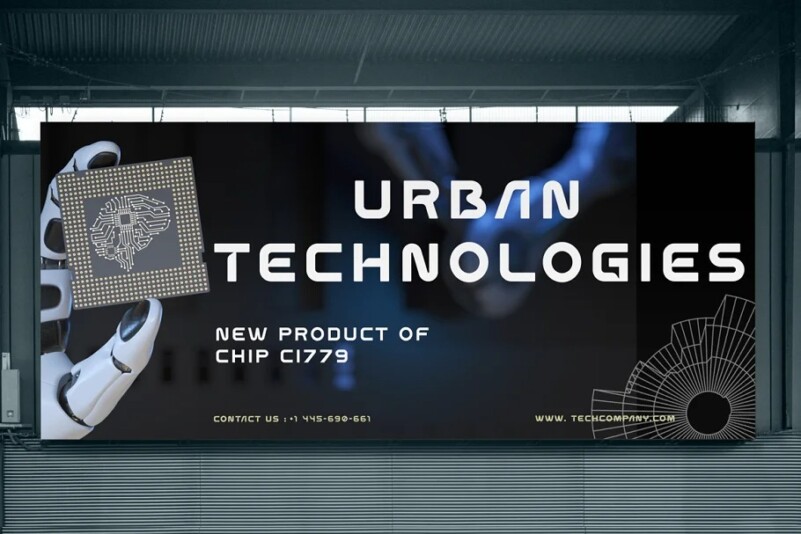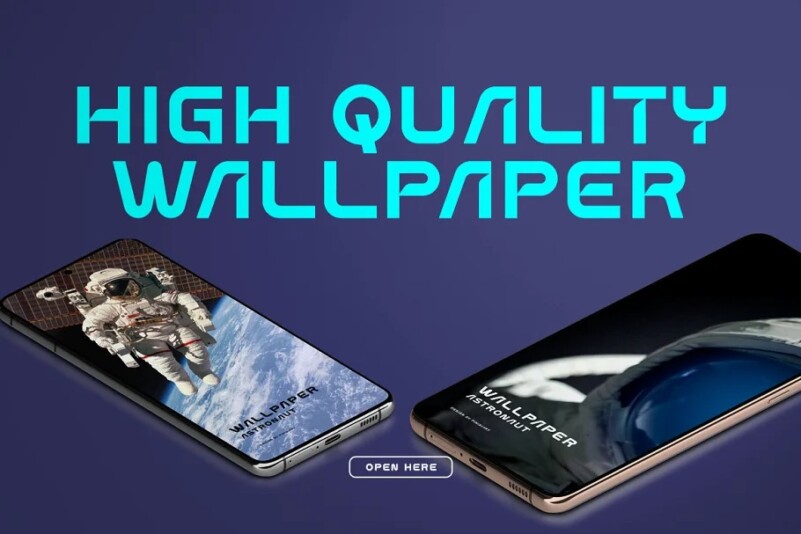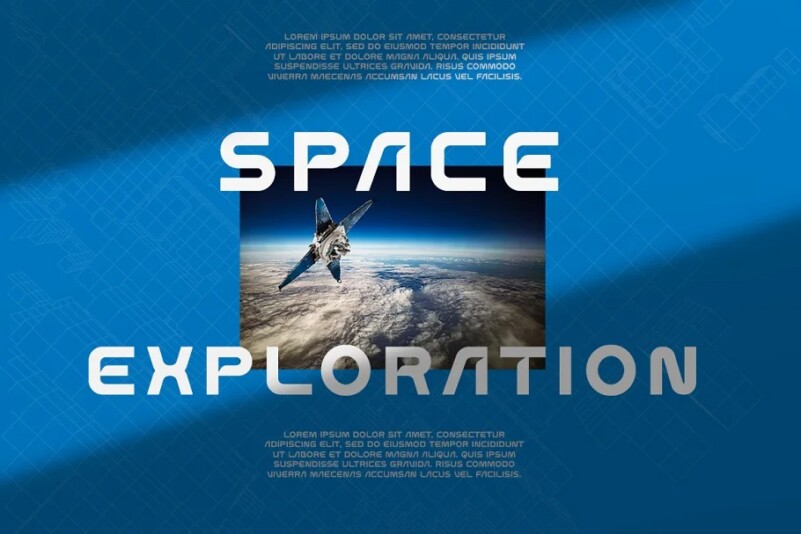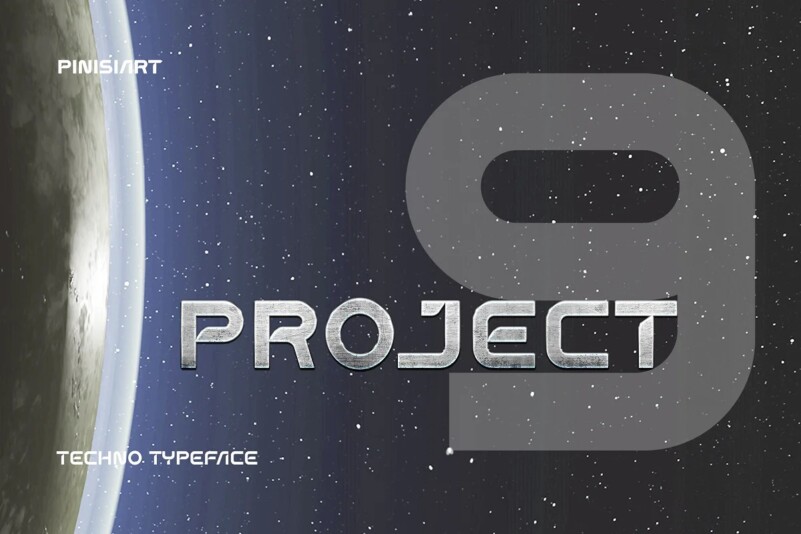
Project 9 Font
Project 9 Font is a display typeface created by Pinisi ART with a modern and futuristic impression with bold characters suitable for your display, headline, logo and branding needs. One of kind techno font that versatile to apply in various design styles. Use it in your projects in such areas as robots & androids, hi-tech, future, virtual reality, space, sport and many others.